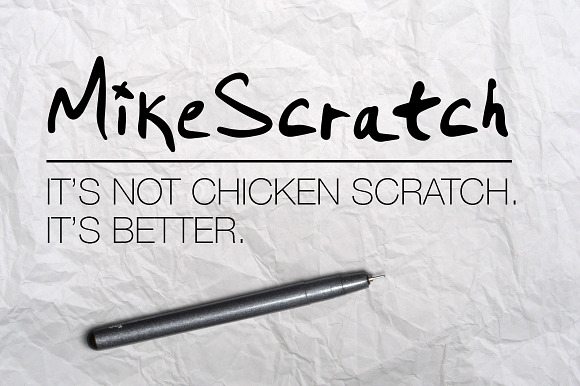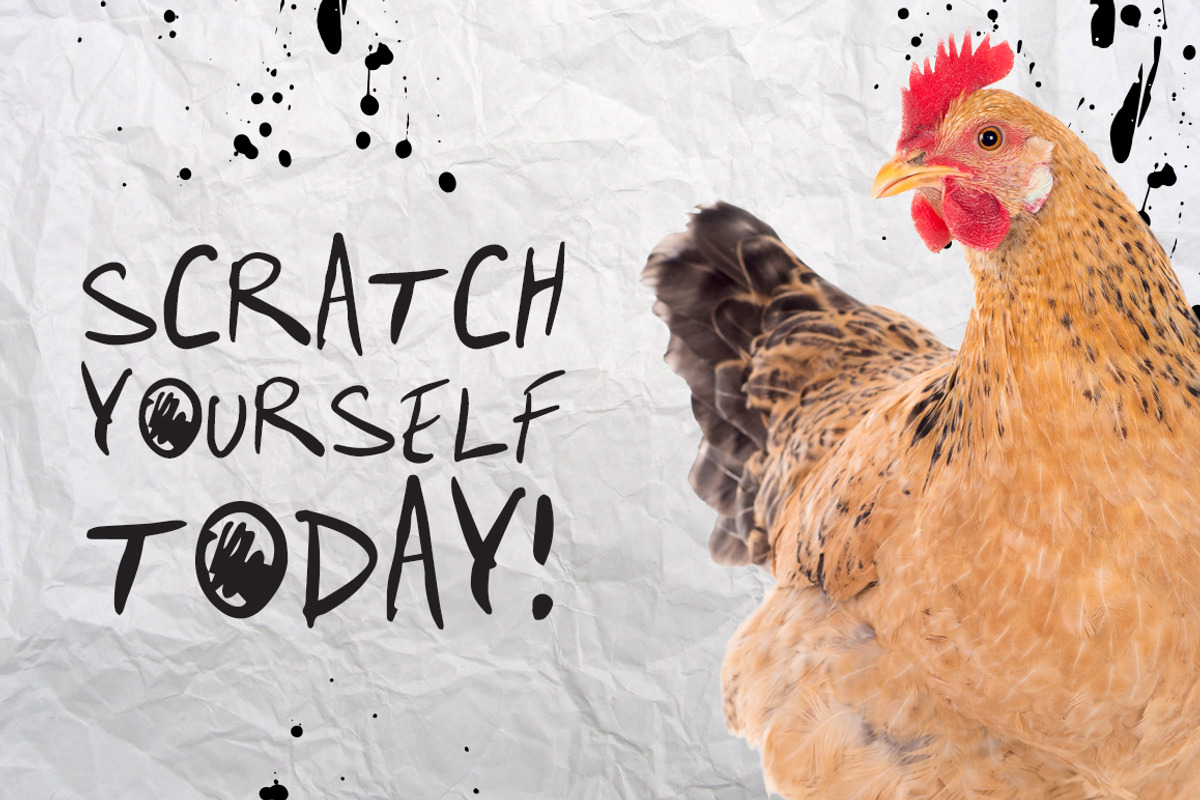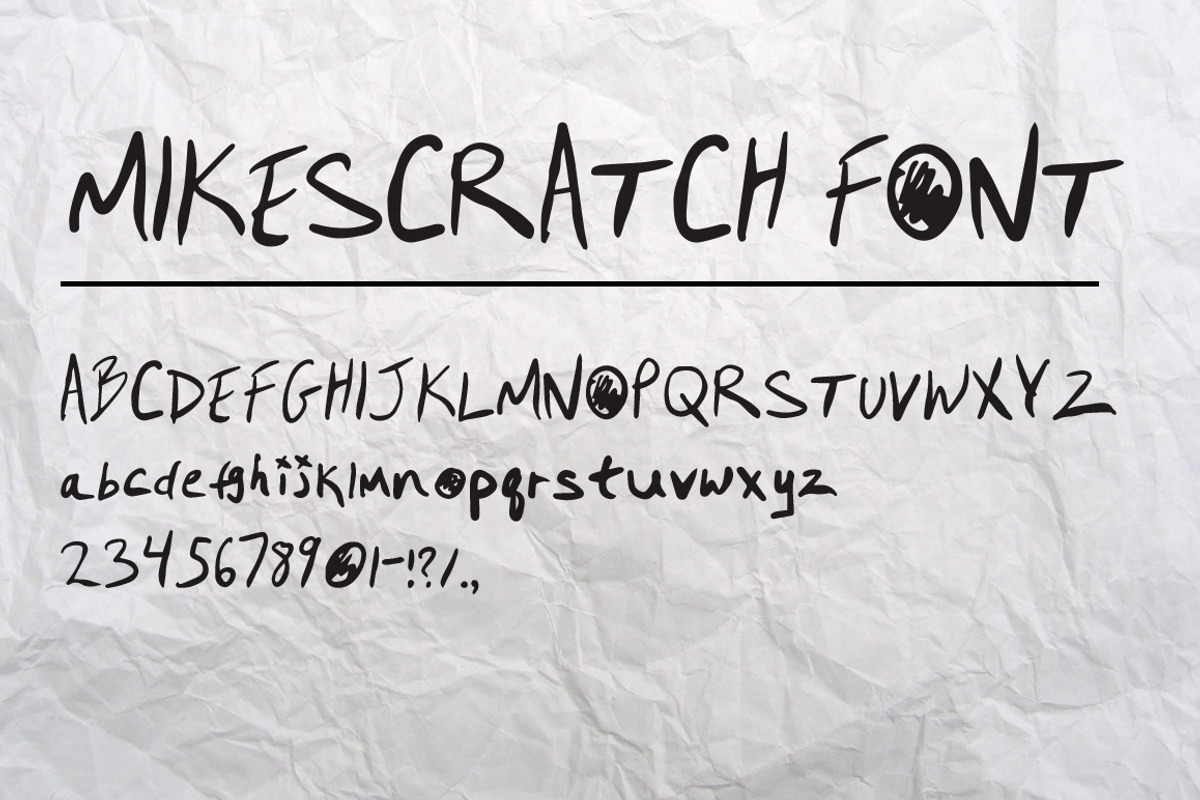
MikeScratch font
My momma always said I had chicken scratch handwriting. Now it's a font. So take that momma.
MikeScratch. It's not chicken scratch. It's better.
Now you can scratch yourself. Go scratch.
MikeScratch font by Mike Brennan Art & Design fits naturally into Branding, posters, packaging, typography.